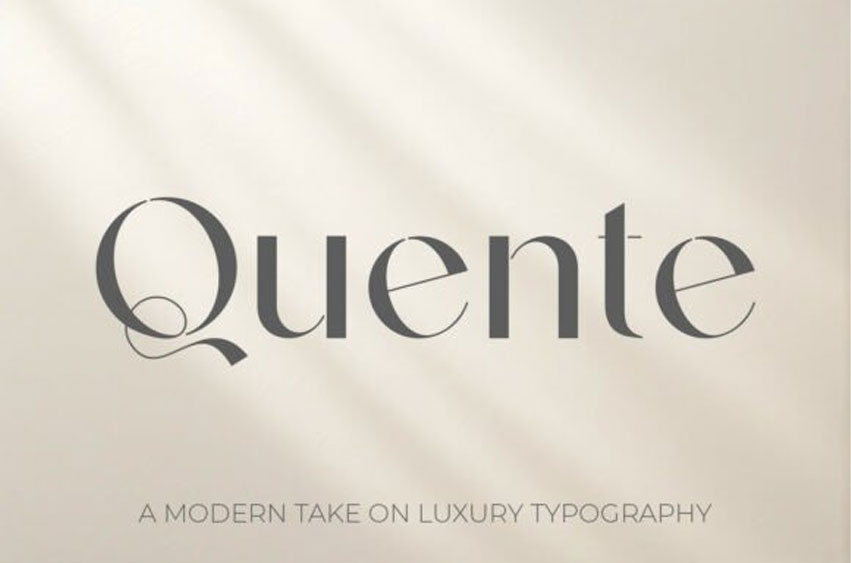
Quente Font
Quente Font Redefine elegance with Quente, a sophisticated serif typeface that offers a contemporary twist on classic luxury. It is the premier choice for luxury magazine mastheads, high-end cosmetic branding, and minimalist logo designs for premium agencies.
Ideal Use: Fashion editorials, luxury perfume packaging, and boutique hotel branding.